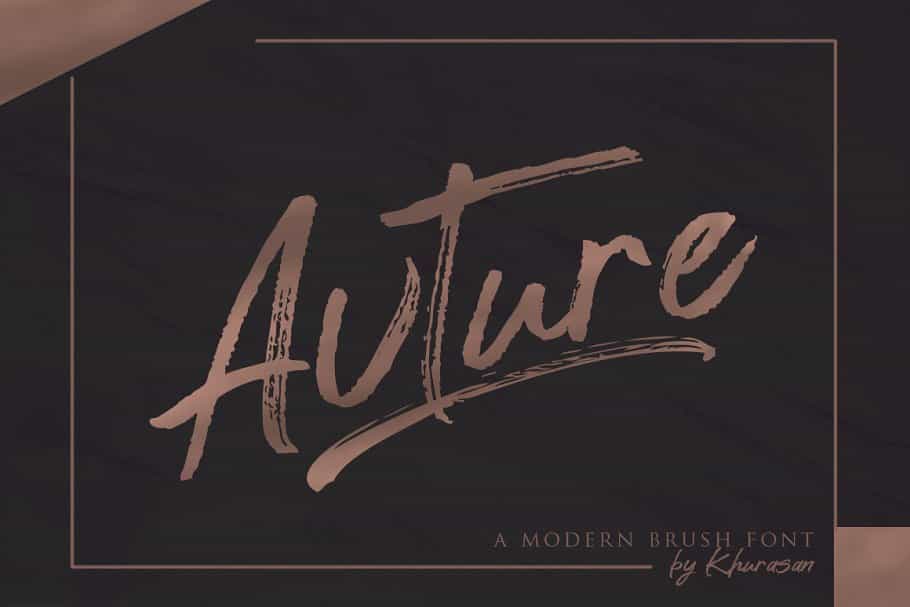
Discover Avture Brush Script Font, part of the Brush Script collection—a versatile and unique font perfect for adding a personal touch to your projects. Download it for free and enjoy crafting designs with style, from invitations to social media posts. This font is available exclusively for personal use, giving you the freedom to create without limits. Unlock your creativity with Avture Brush Script Font today!
Avture can be characterised as a sort of font that is quite edgy and rather looking like it has been scribbled. It is a style that is casual, which makes it ideal for advertisement, branding, poster design, logos and book covers, magazines packaging, website headers greeting cards, designs for apparels and fashion products, merchandise, albums, newsletters, quotes, and many more.